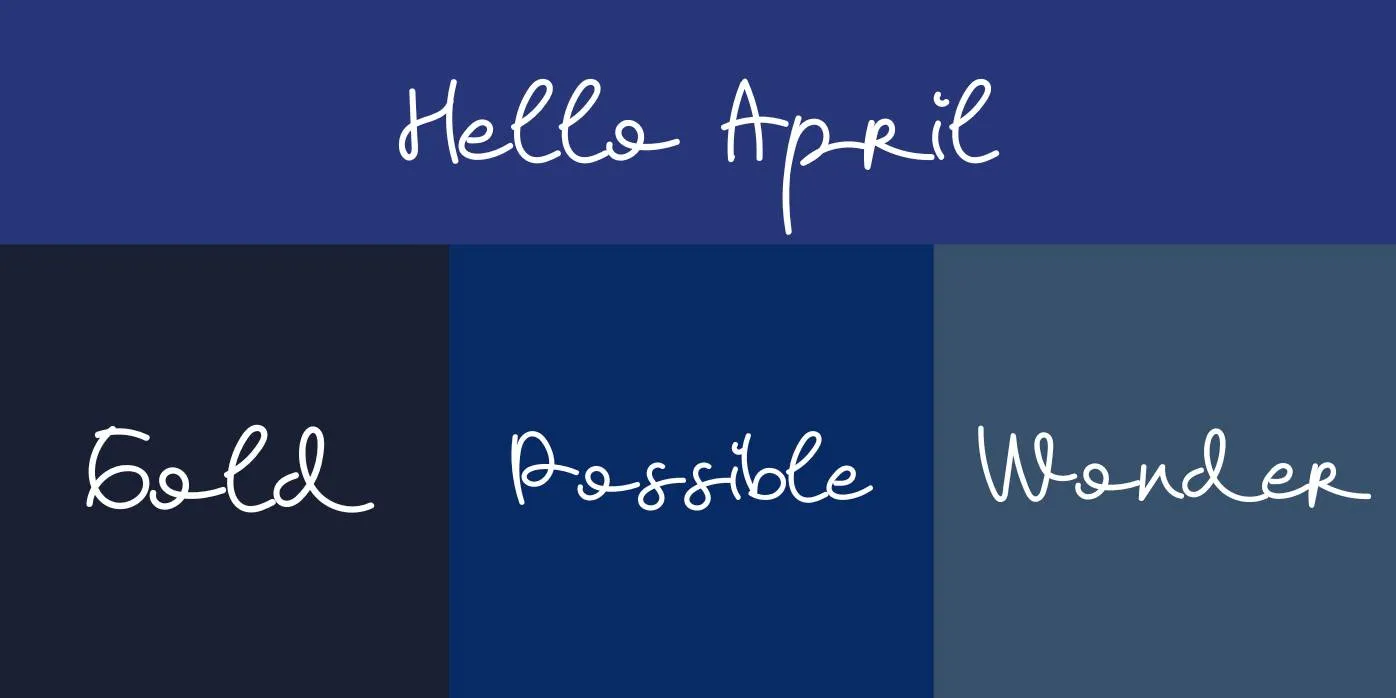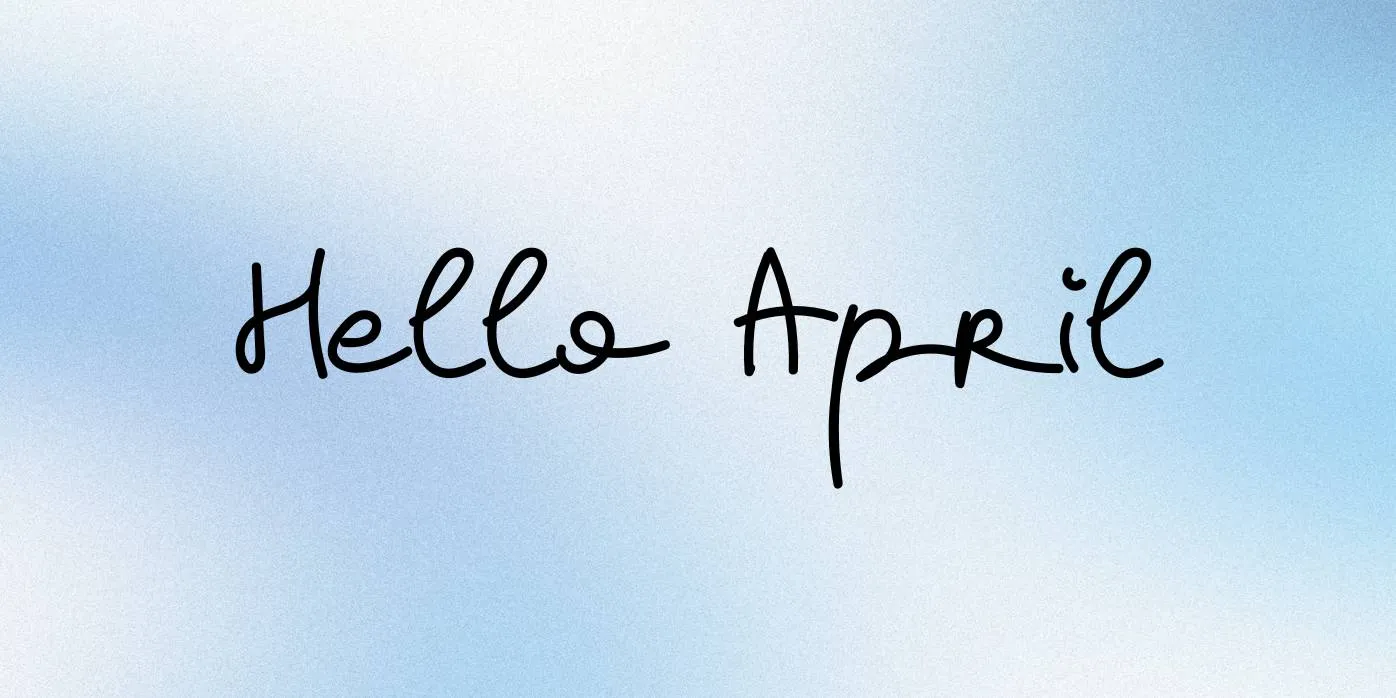
Hello April Font
Today We talk about another amazing typeface Hello April Font. This wonderful font was designed by DiniYulfiani Kartini. It has many amazing features which can be used to design different projects. This font belongs to the handwritten texture family with unique and elegant type of alphabet characters.  This font is very easy to read for viewers and the style of the characters appeals to the audience and makes them understand each and every letter of your design.
This is a thin letter texture that has proportionally spaced characters. An online generator tool also helpful to generate this font which you can convert your simple text into a stylish look without downloading the font. Usage It is a very nice and romantic handwritten font and can be used to design many different projects. It has many different glyphs include like symbols, numbers, small letters, capital letters, punctuations, and special characters.
FAQs! Who is the owner of Hello April font? This amazing font was designed by DiniYulfiani Kartini. It has many amazing features which can be used to design different projects.